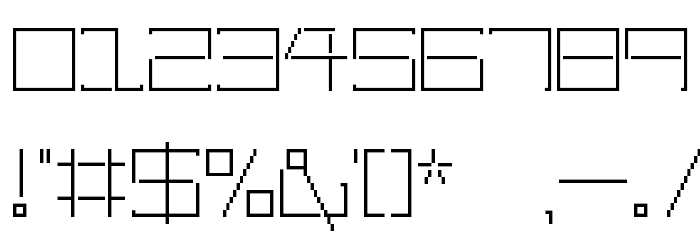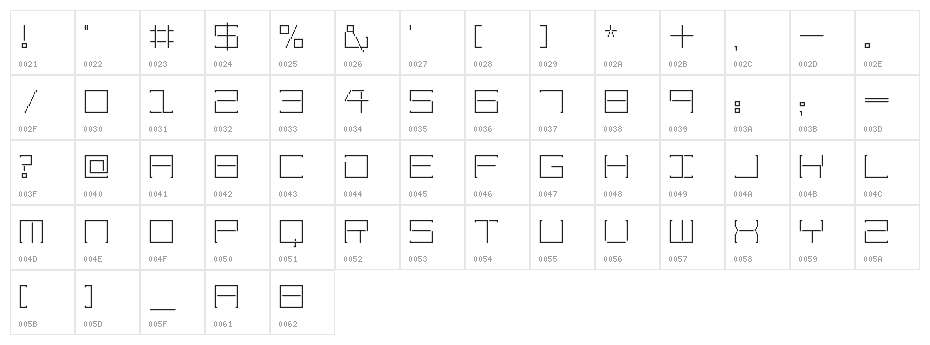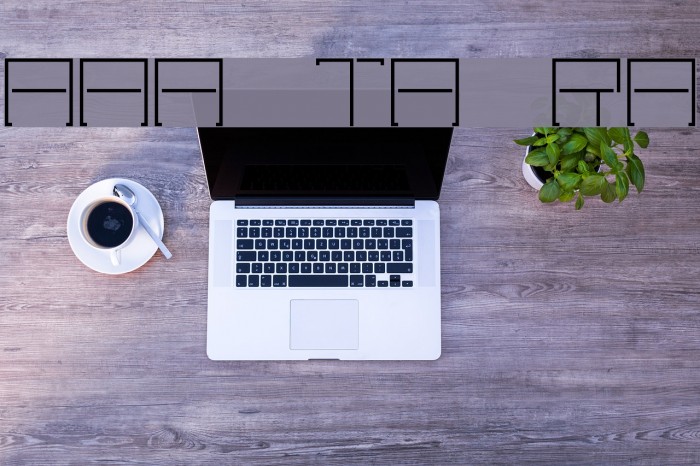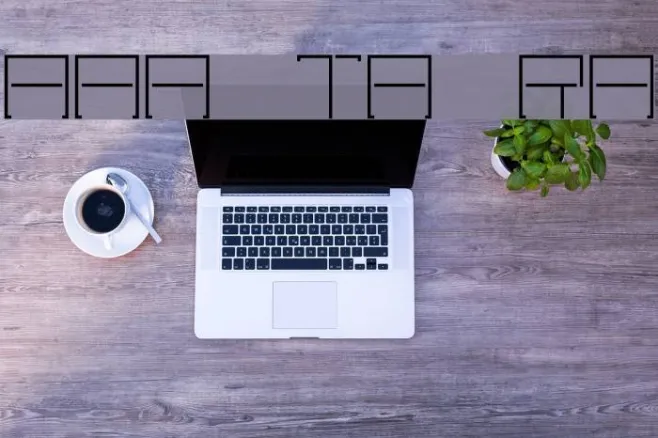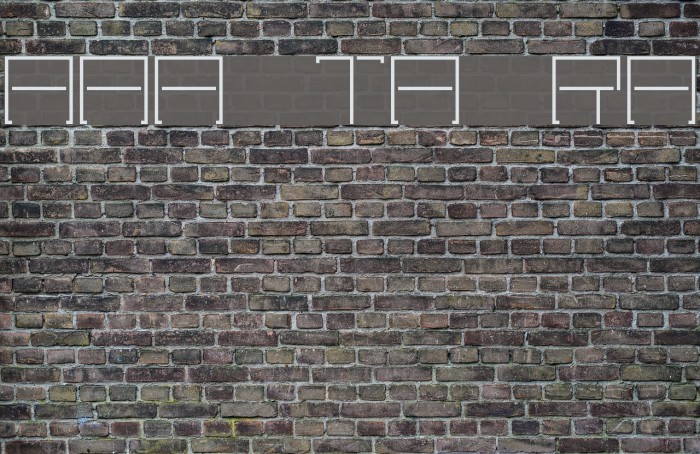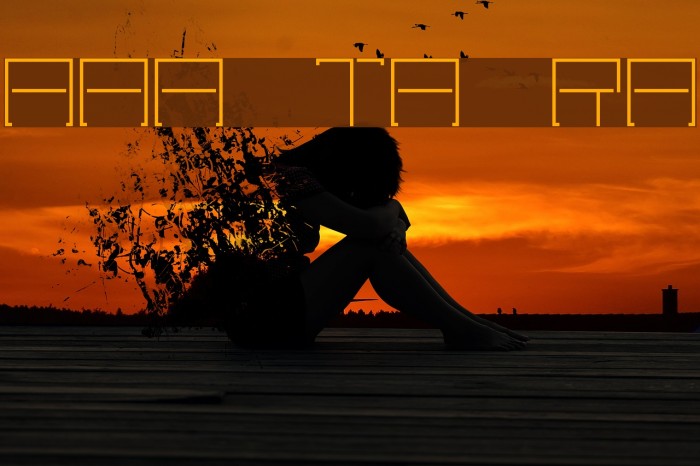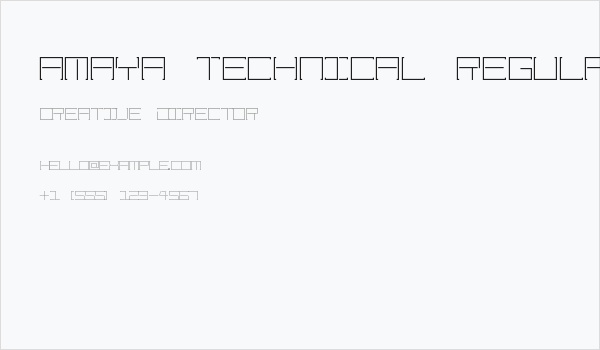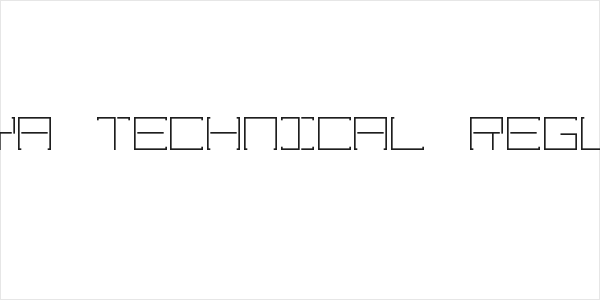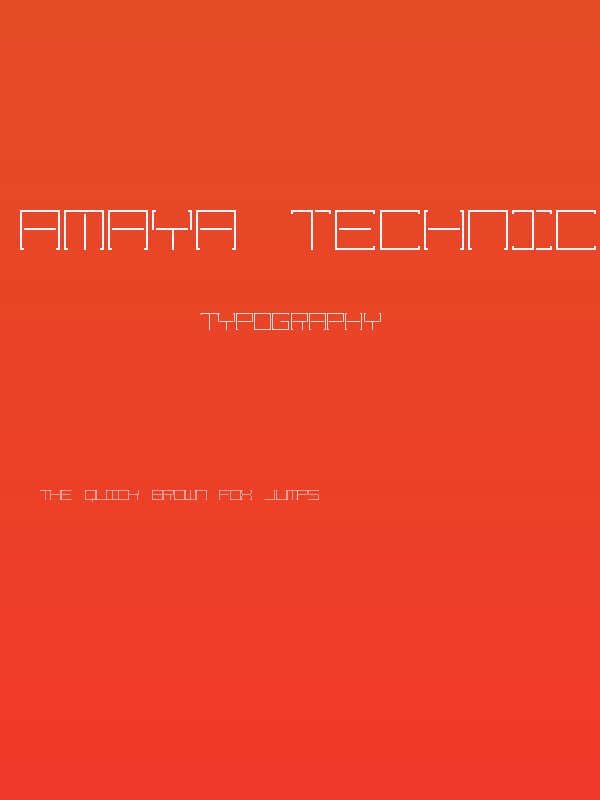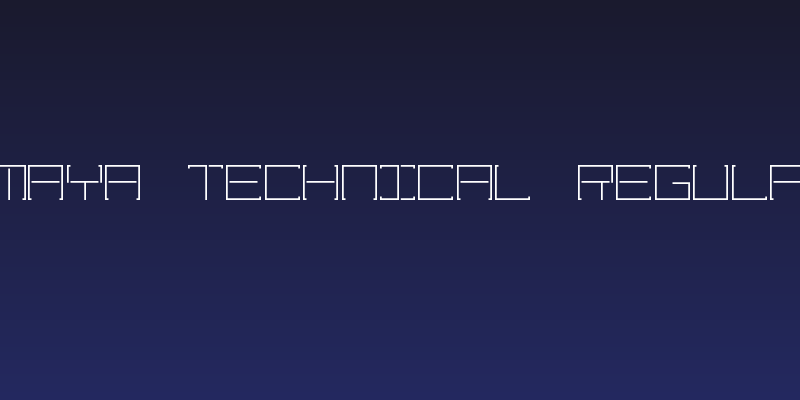
Amaya Technical Regular Font
Amaya Technical Regular Description
This font features a technical and geometric design, characterized by its grid-like structure and precise, angular lines. Each character is constructed with a consistent stroke width, giving it a uniform appearance. The font's design is reminiscent of digital or electronic displays, with a modern and minimalist aesthetic. The uppercase and lowercase letters maintain a similar height, enhancing its structured look. The numerals and special characters are designed to match the overall style, ensuring a cohesive appearance across all glyphs. This font is ideal for projects that require a clean, technical, and futuristic feel.
| Use Case | Headlines, Digital displays, Technical documents |
| Proposed Projects | Ideal for technical documents, digital displays, software interfaces, and modern branding. |